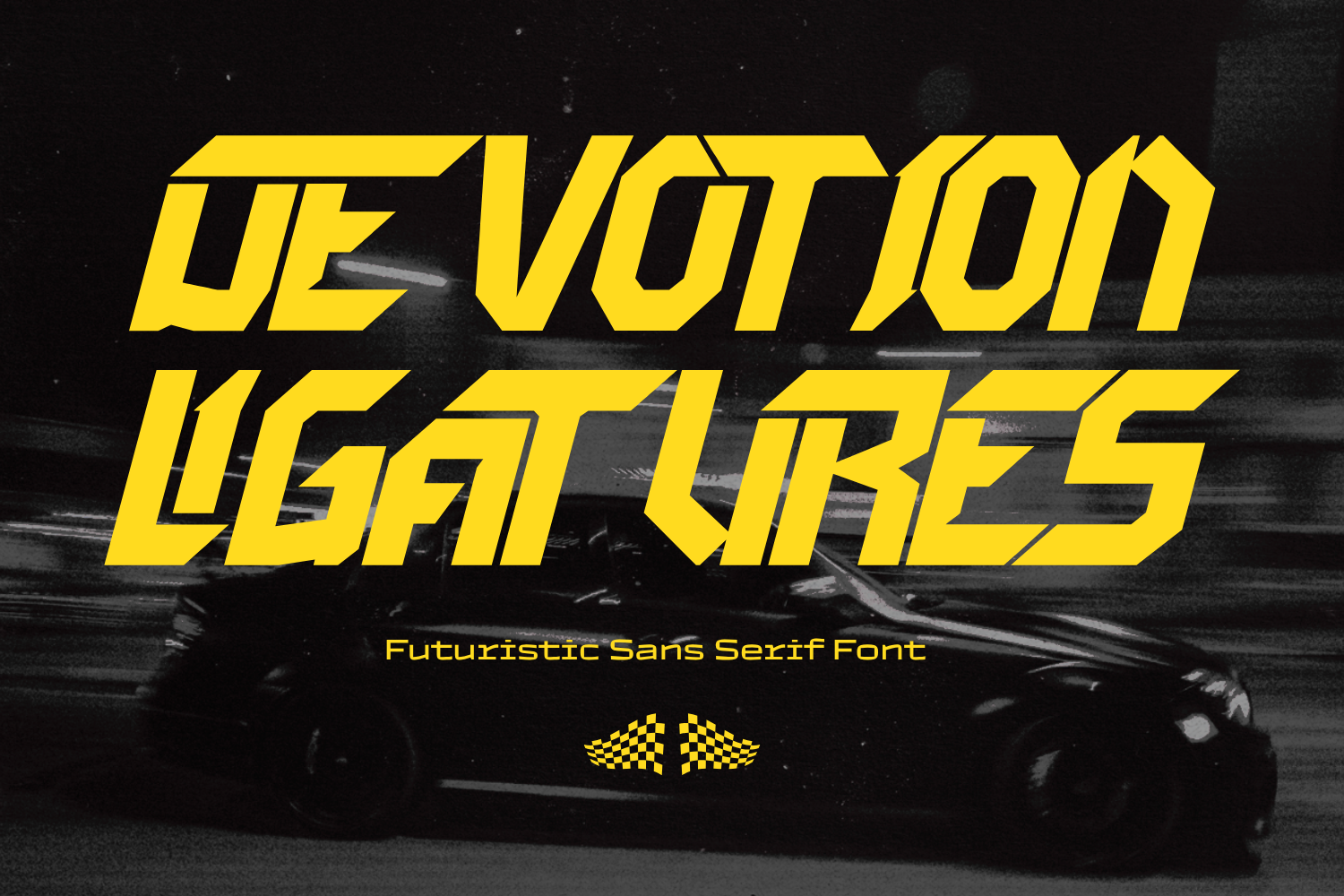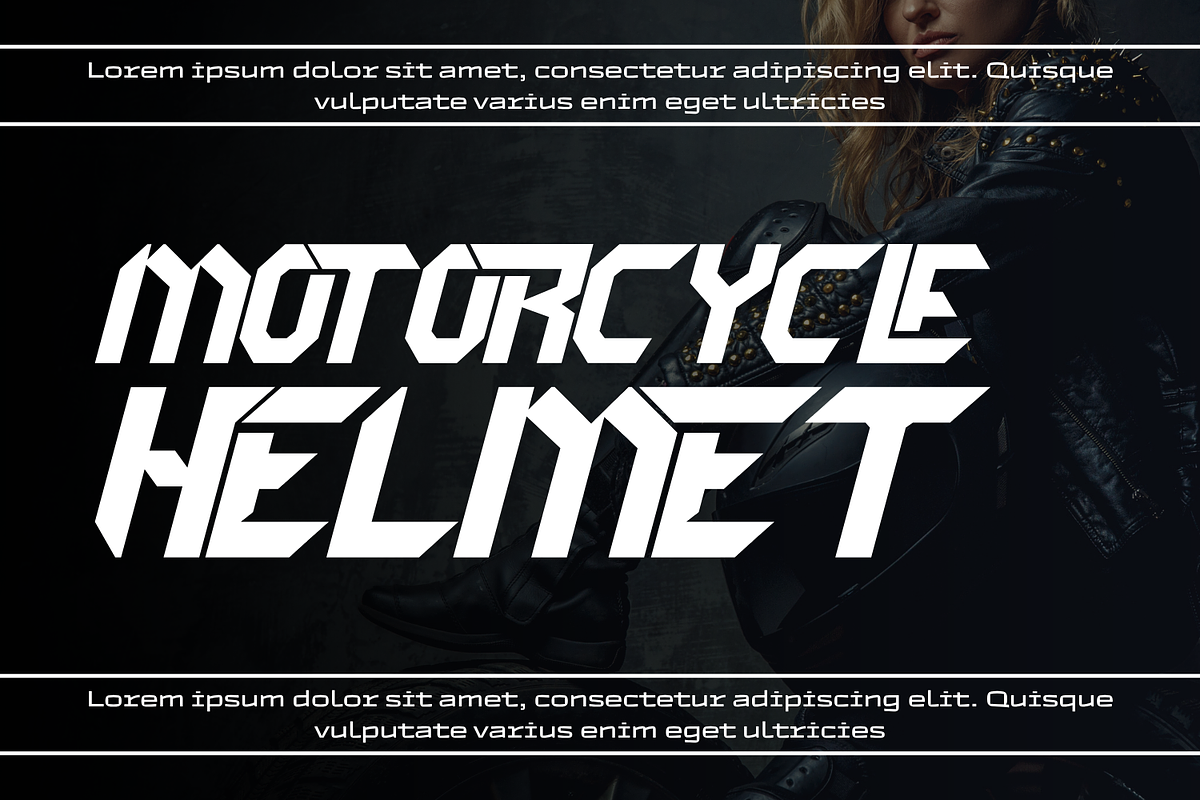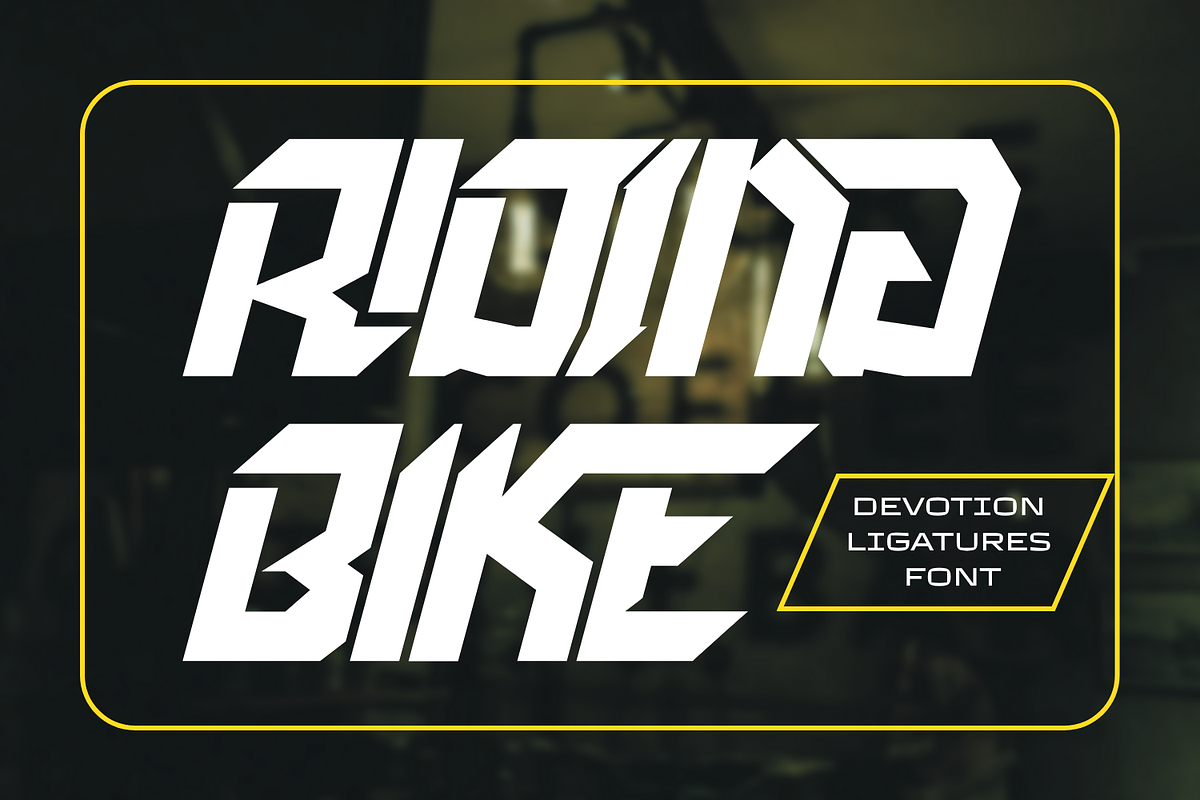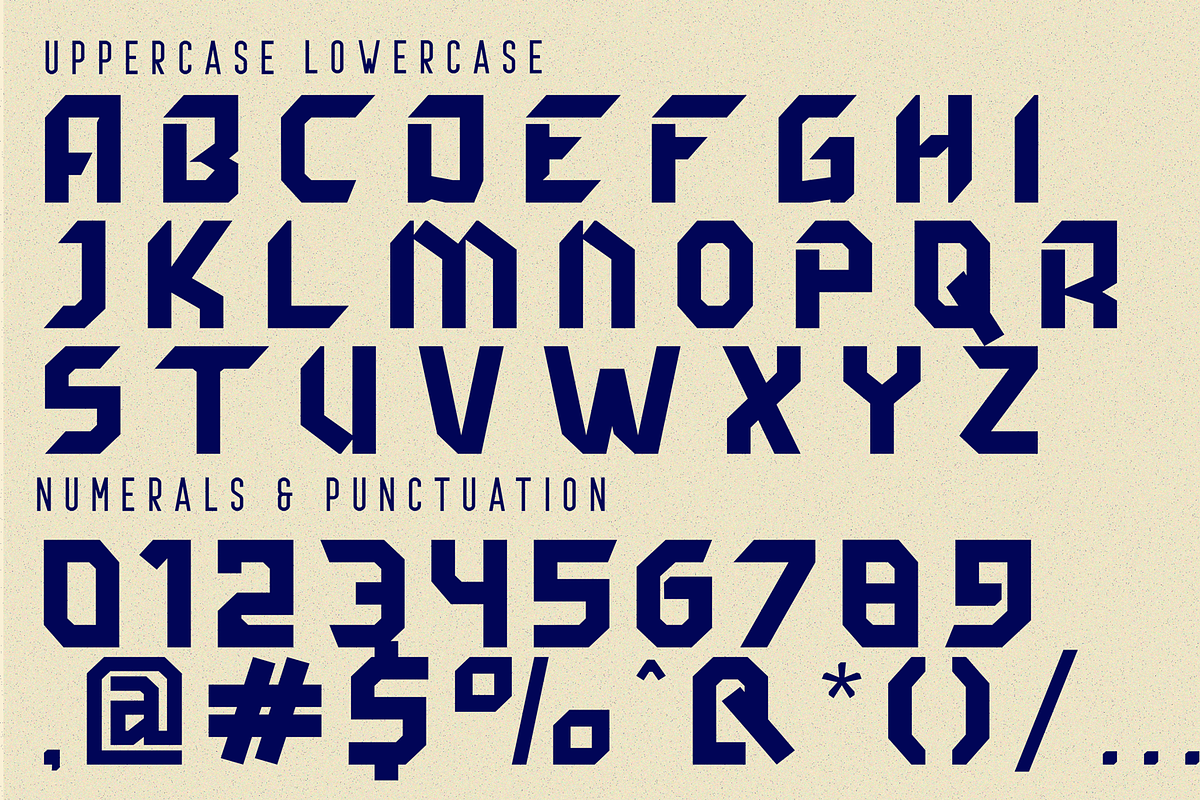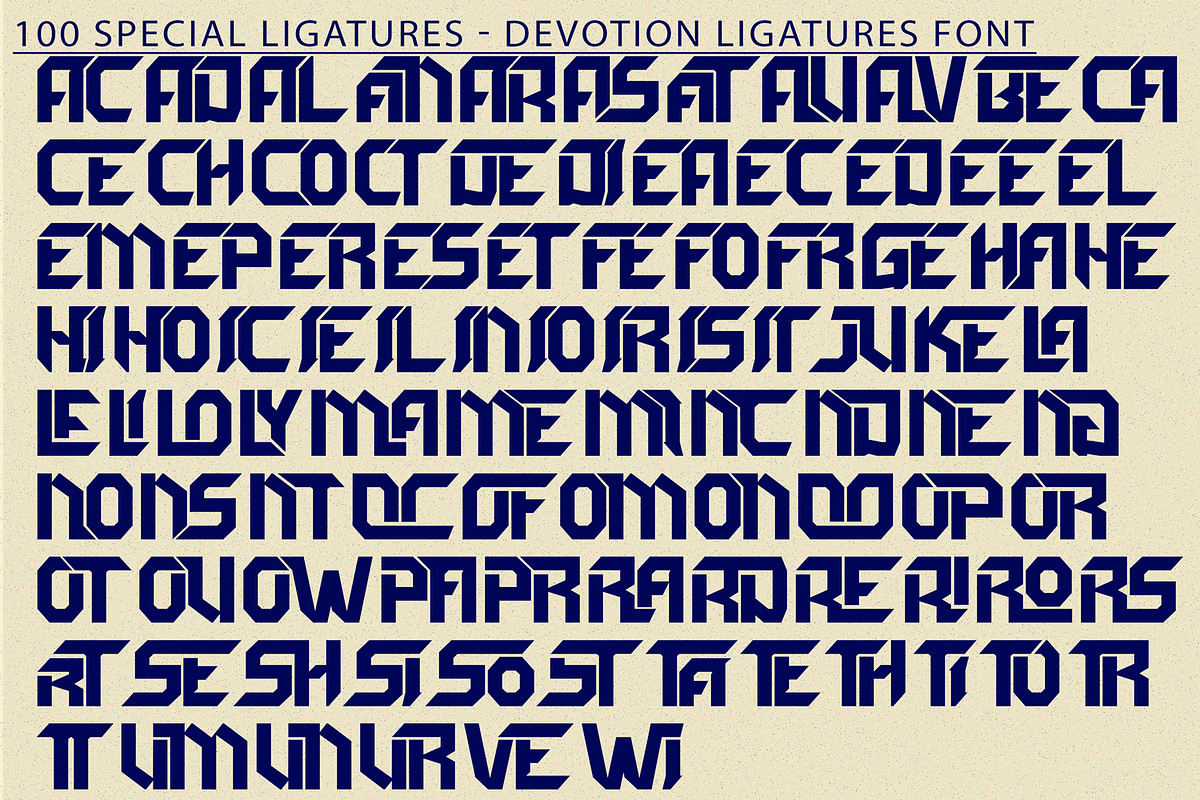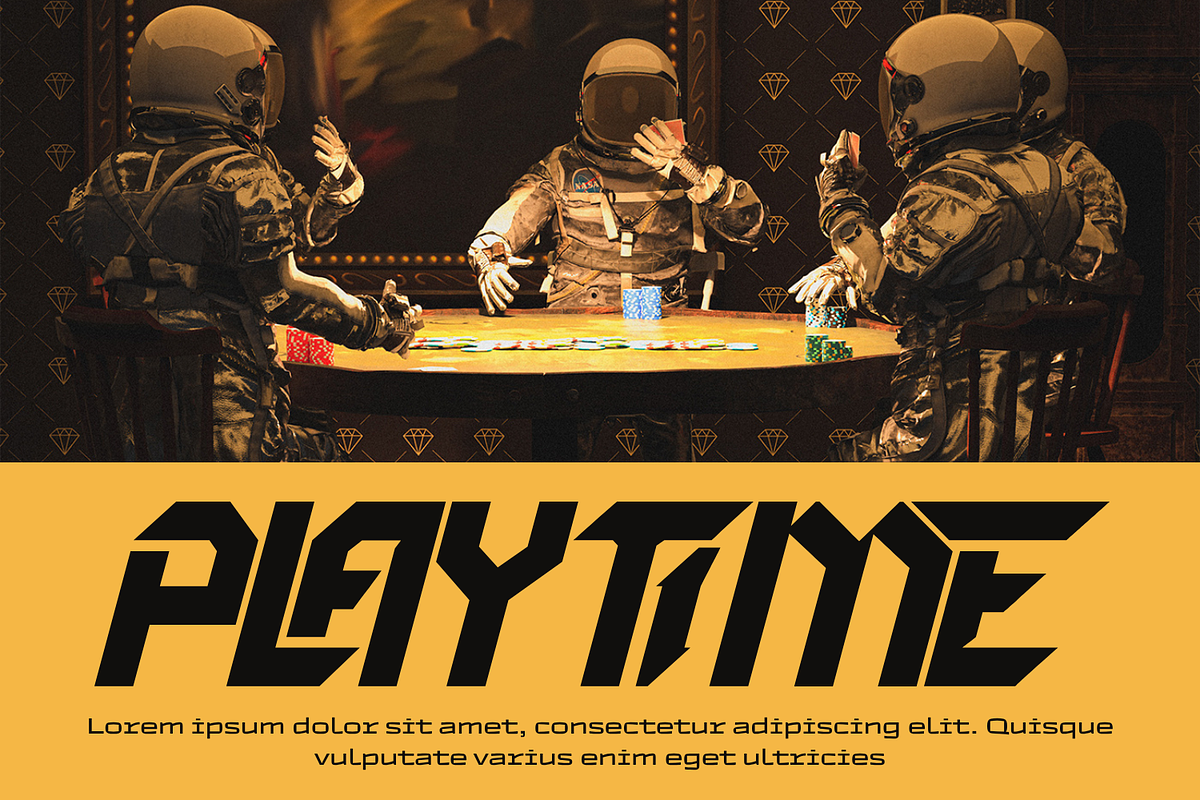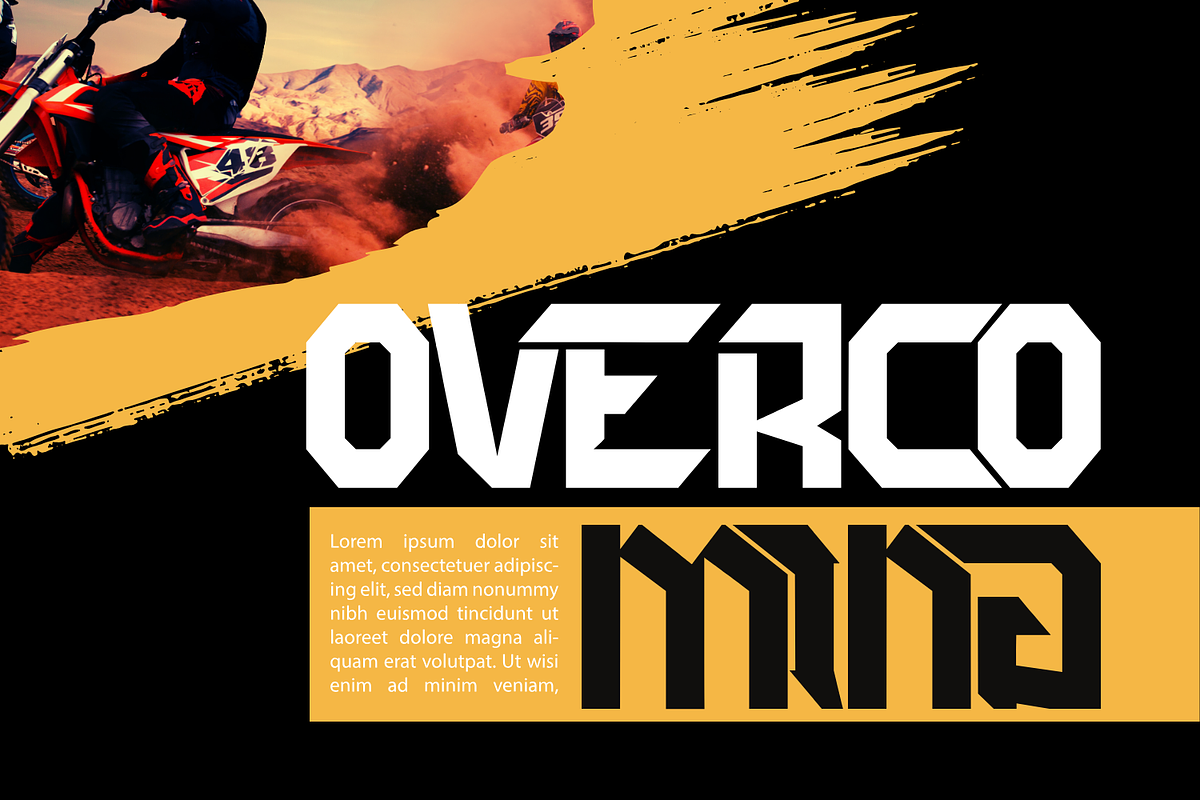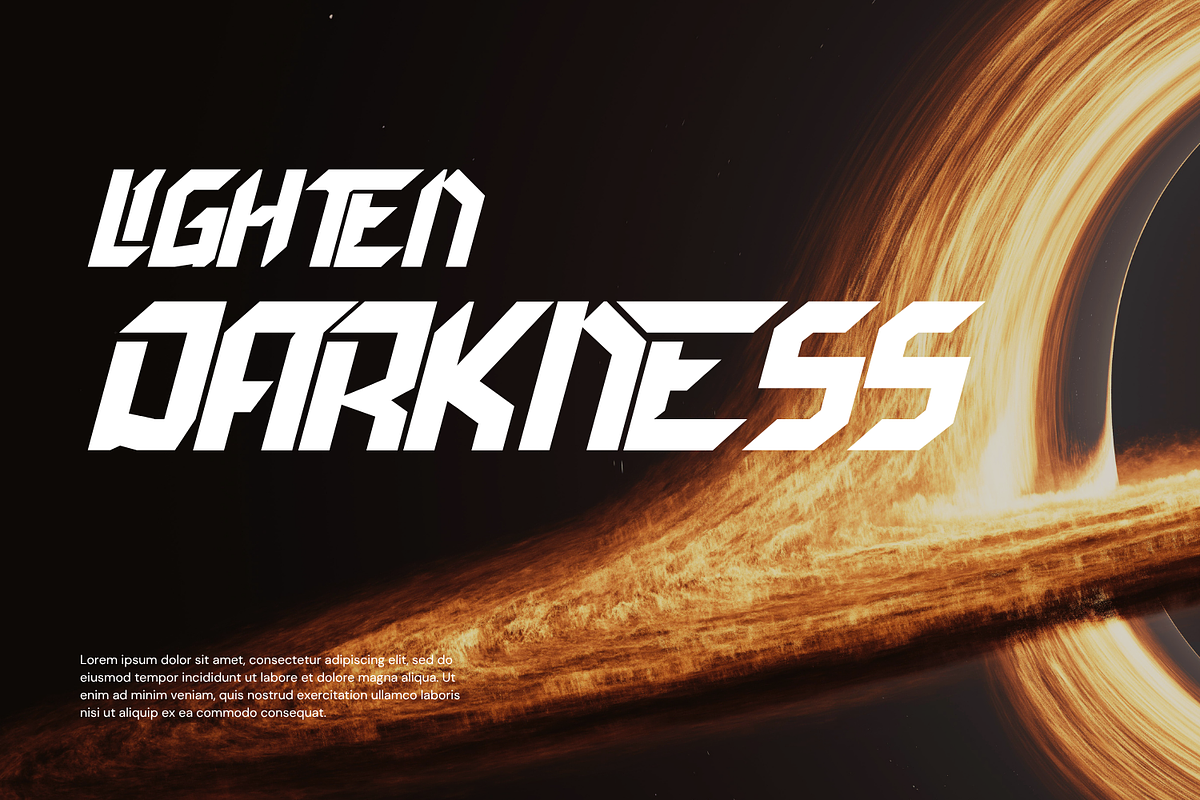
Devotion Ligatures - Futuristic Font
Devotion Ligatures - Futuristic Font is a futuristic display typeface built with angular precision and dynamic energy. Designed for maximum visual impact, this font features bold diagonal cuts, modular construction, and a wide selection of powerful ligatures that bring a sense of speed and urgency to your typography.
Inspired by cyberpunk aesthetics, esports graphics, and techno-industrial signage, Devotion Ligatures captures a feeling of motion and momentum—ideal for headlines, posters, logotypes, racing themes, and digital interfaces.
- Uppercase Letterforms
- 100+ Custom Ligatures & Stylistic Alternates
- Numerals, Symbols, and Full Punctuation
- Multilingual Accents & Support
- Perfect for gaming, streaming overlays, sport branding, sci-fi film titles, and more
About 100 ligatures combined with Stylistic Alternates Font:
AC AD AL AN AR AS AT AU AV BE CA CE CH CO CT DE DI EA EC ED EE EL EM EN EP ER ES ET FE FO FR GE HA HE HI HO IE IC IL IN IO IR IS IT JU KE LA LE LI LL LO LY MA ME MI NC ND NE NG NO NT NS OC OF OM ON OO OP OR OT OU OW PA PR RA RD RE RI RO RS RT SE SH SI SO SS ST TA TE TH TI TO TR TT UM UN UR VE WI WO